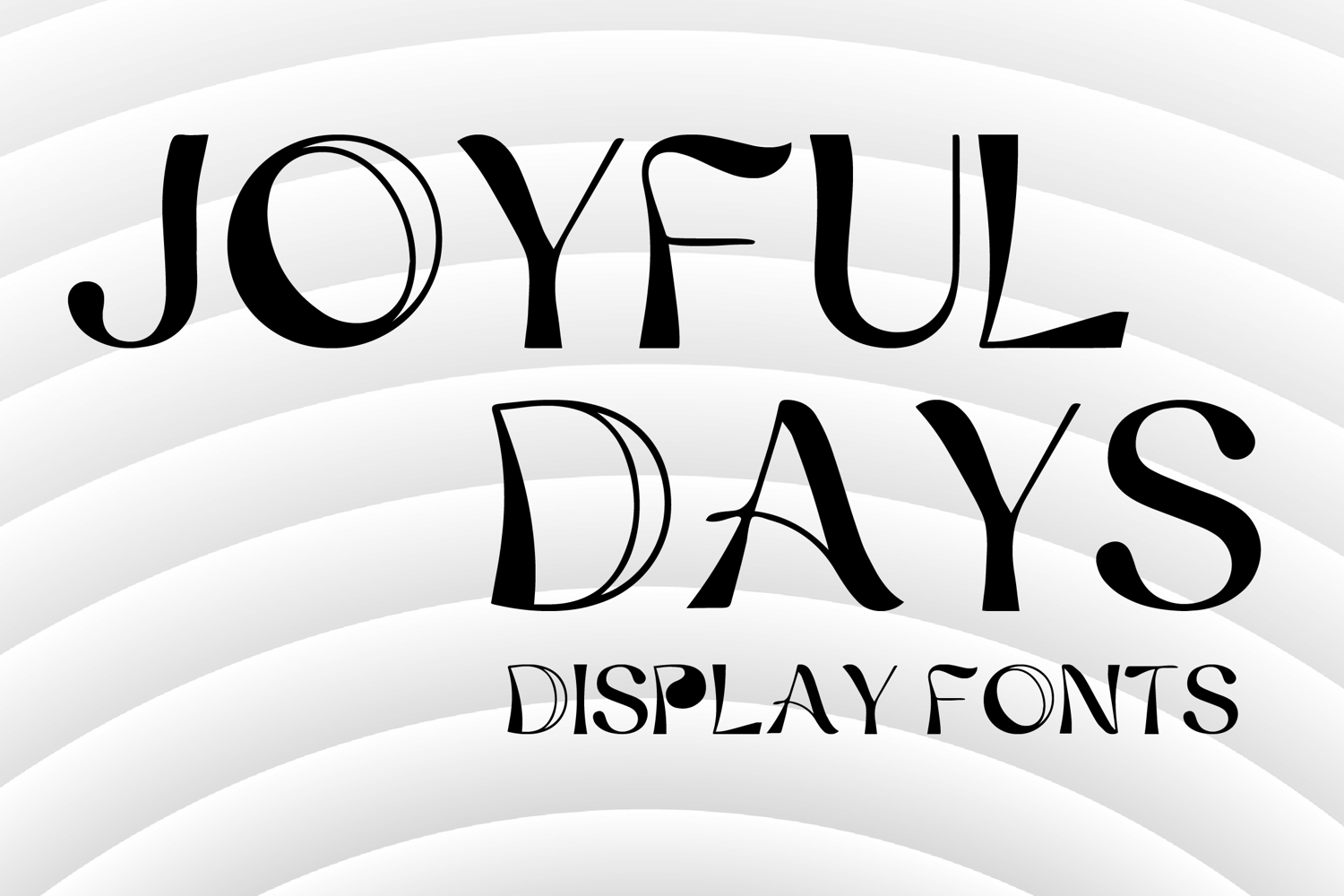
JOYFUL DAYS
JOYFUL DAYS is an elegant decorative display font with a refined artistic style and graceful vintage-inspired charm. Its uppercase letterforms feature slender strokes, flowing curves, and distinctive high-contrast details that create a stylish, expressive, and eye-catching look. Designed with uppercase letters A–Z and numbers 0–9, JOYFUL DAYS is perfect for branding, logos, posters, packaging, invitations, book covers, and creative projects that need a sophisticated and memorable statement.